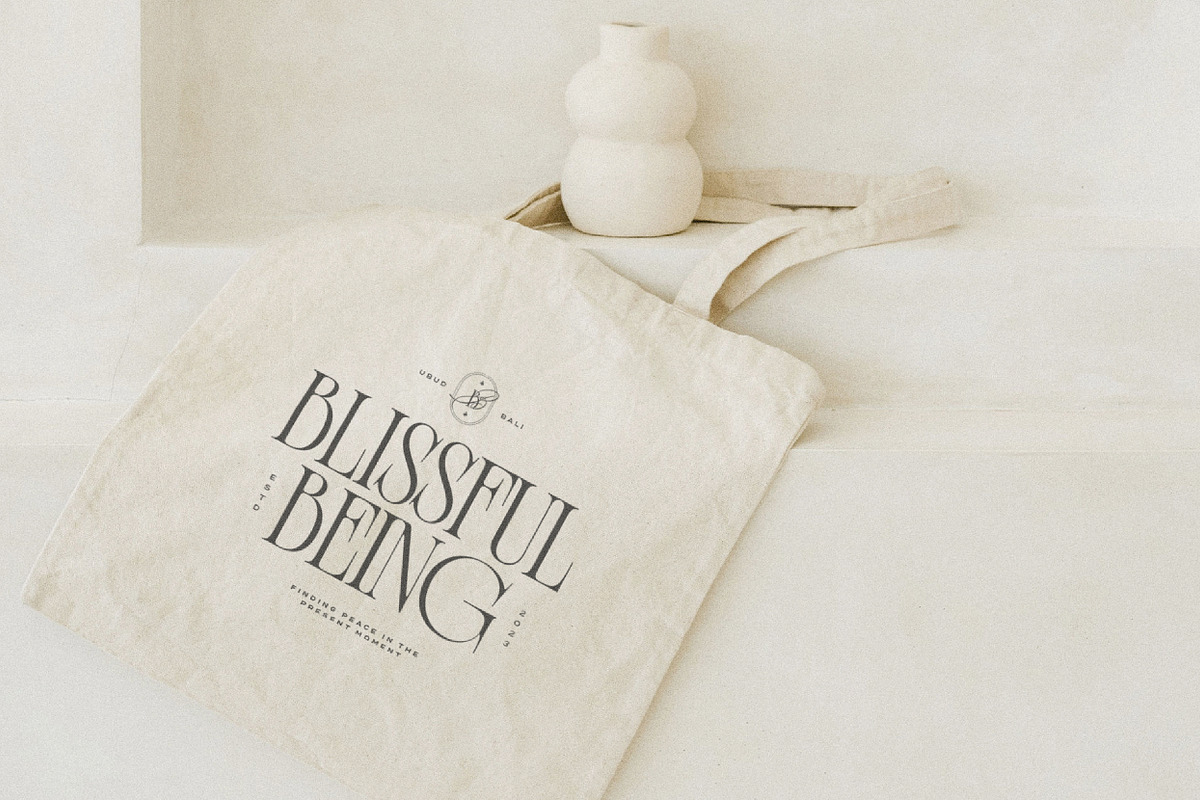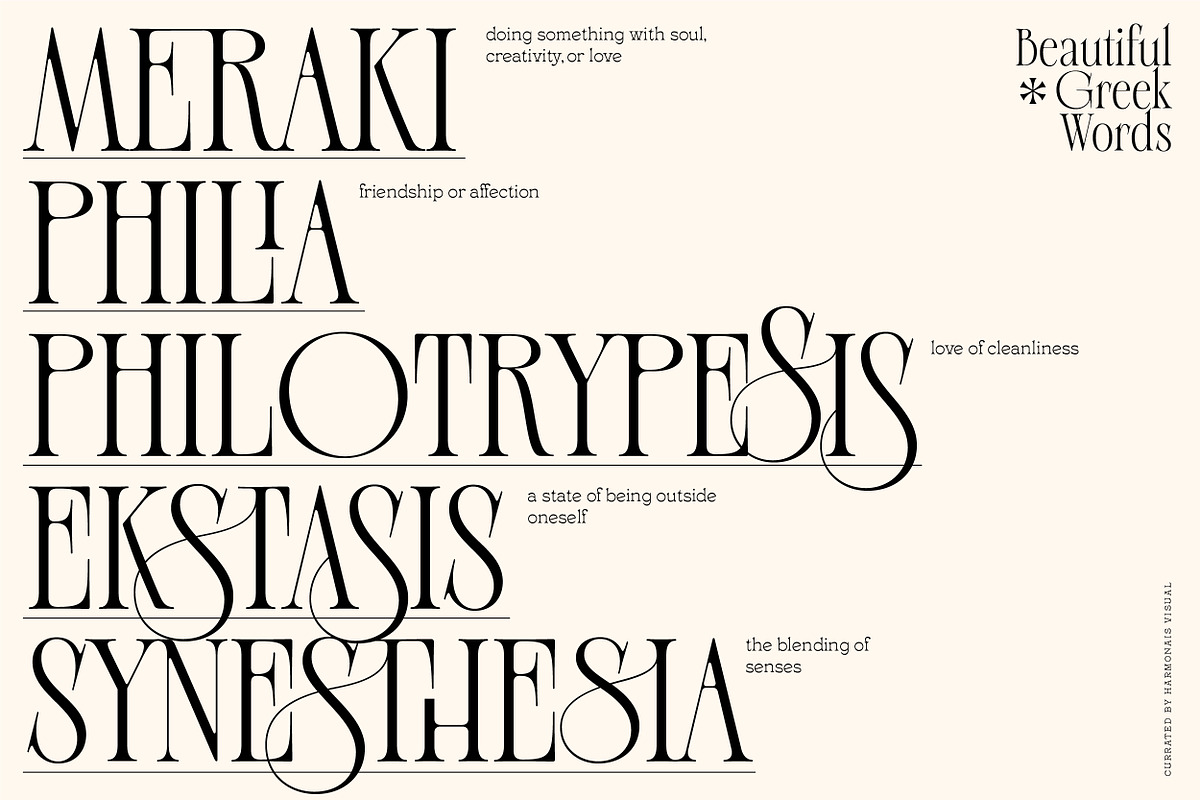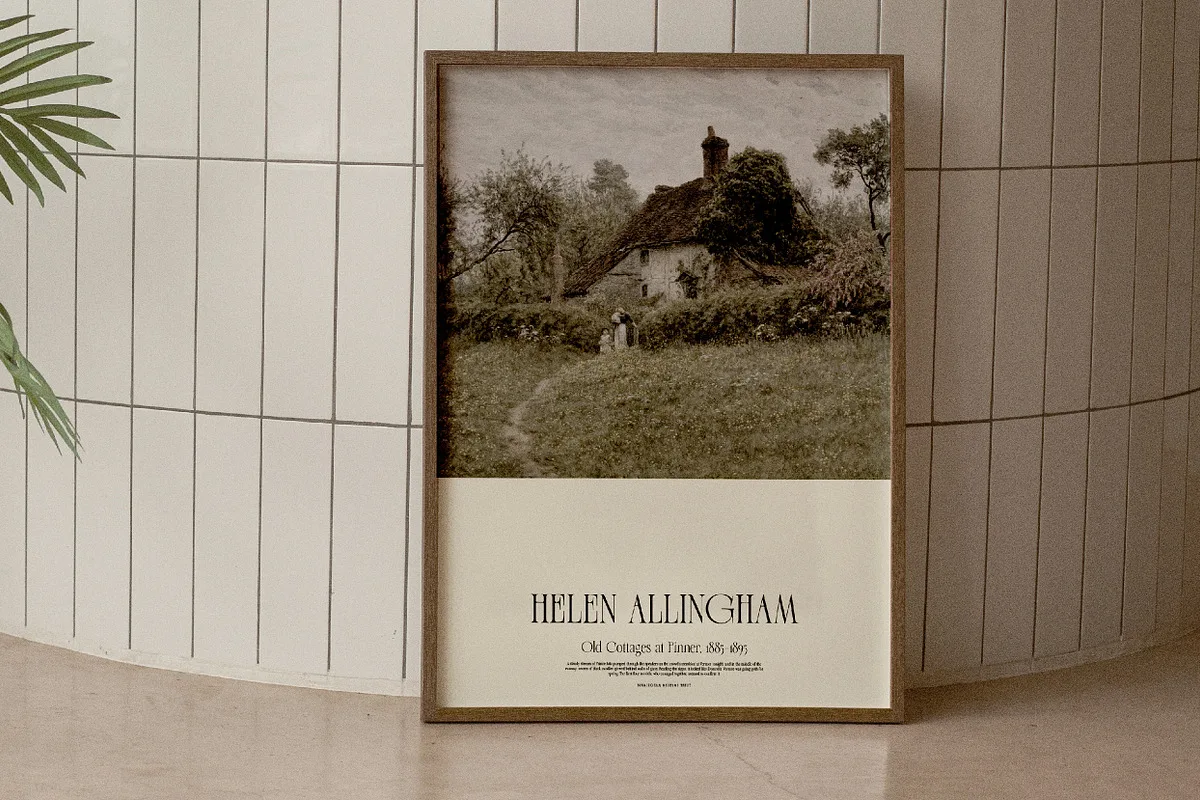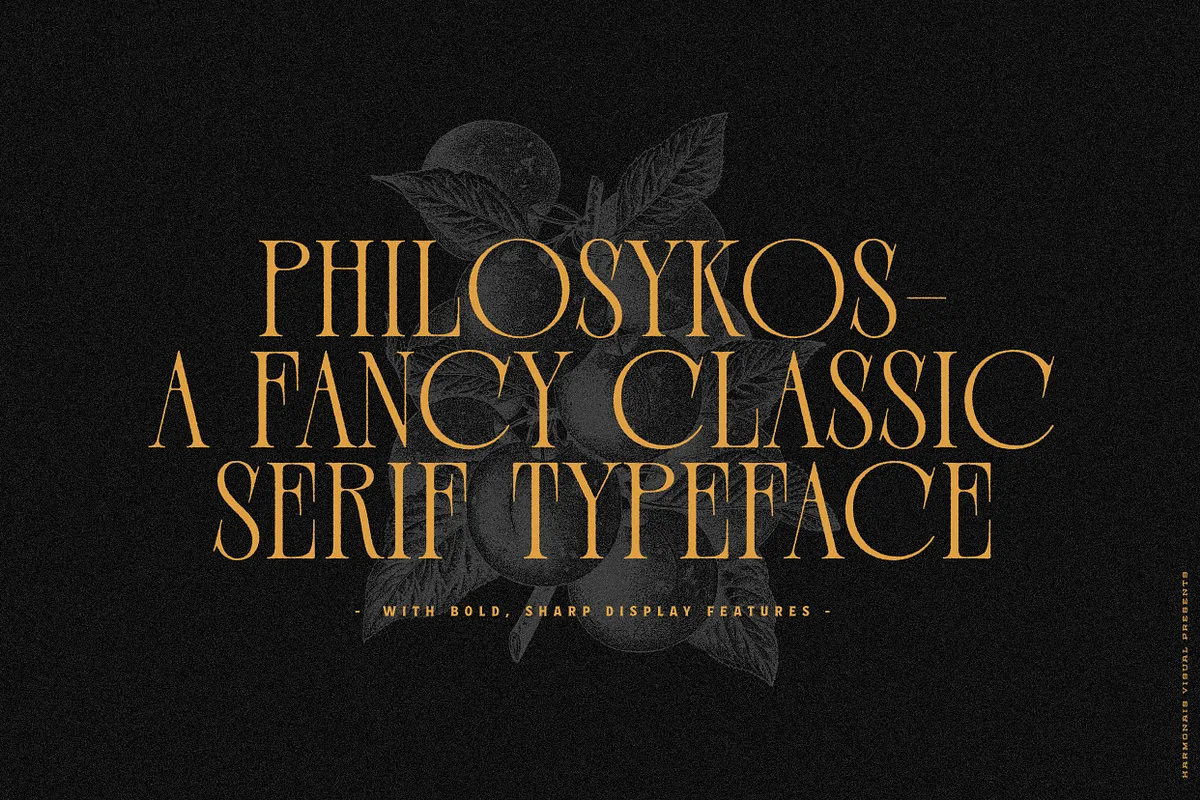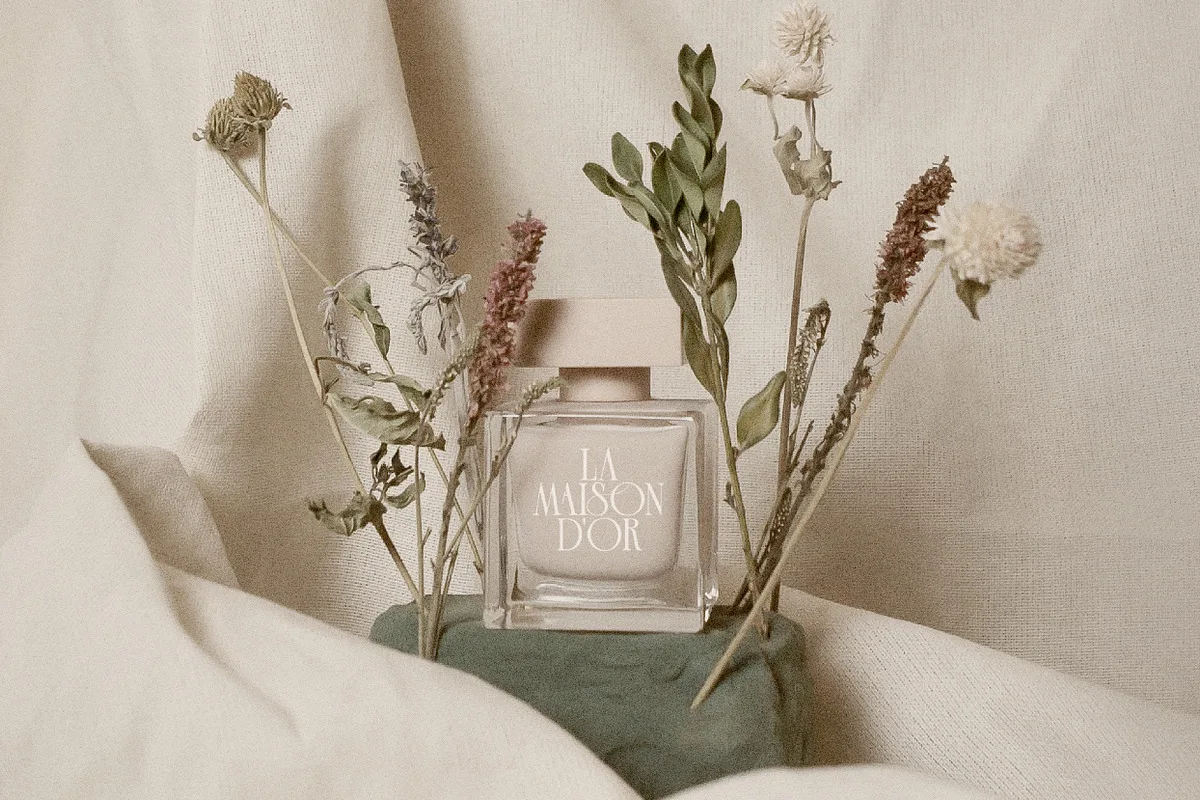
Philosykos is a fancy classic serif font. With its carefully crafted details and more than 80 ligature choices, it is the perfect choice for adding a cultured, sophisticated look to your artwork.
This typeface comes in four styles – Regular, Italic, Bold, and Bold Italic – making it versatile enough for a wide range of designs. This awesome font is perfect for branding, logos, invitation, watermark and so much more.